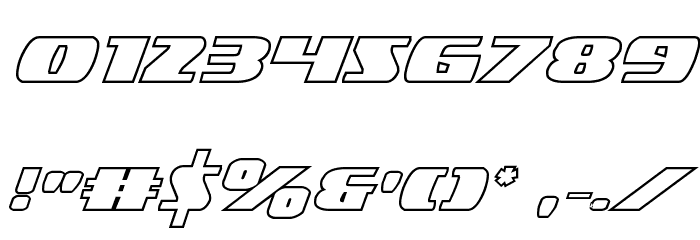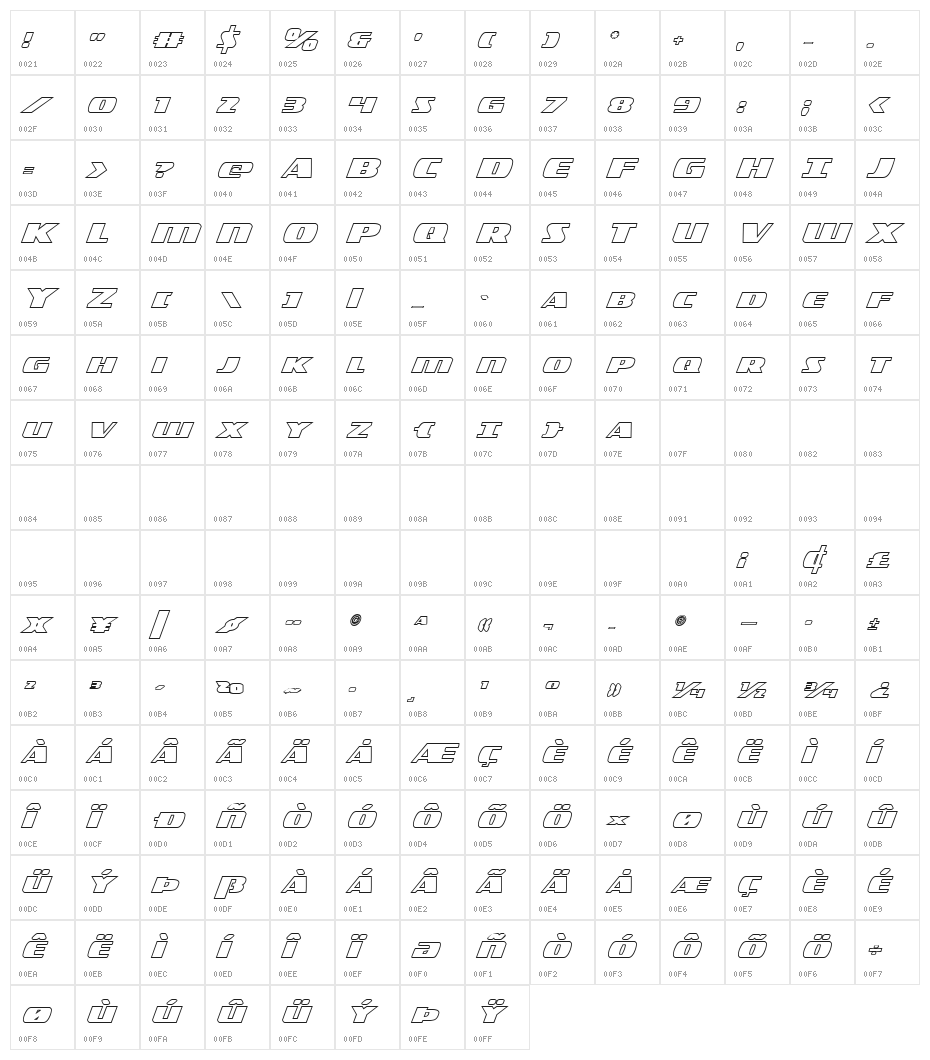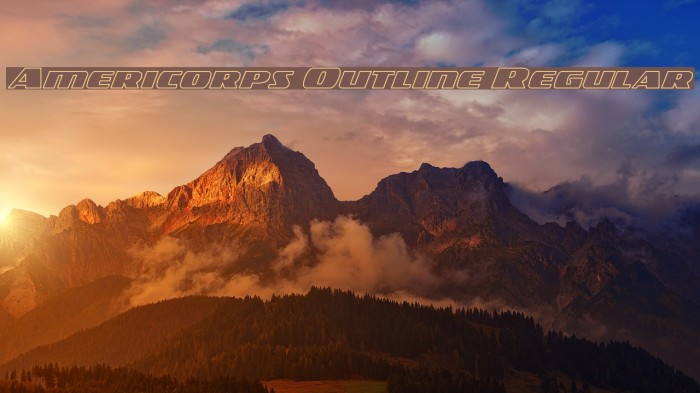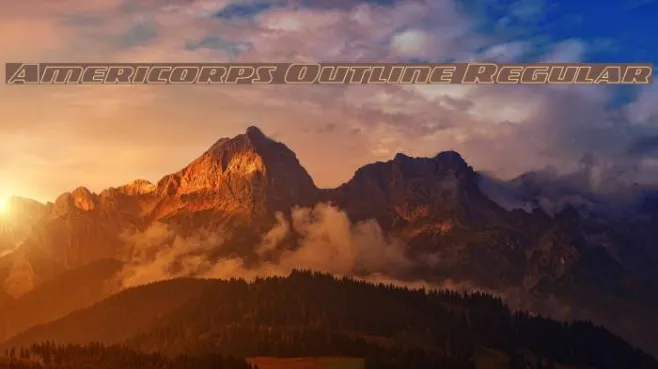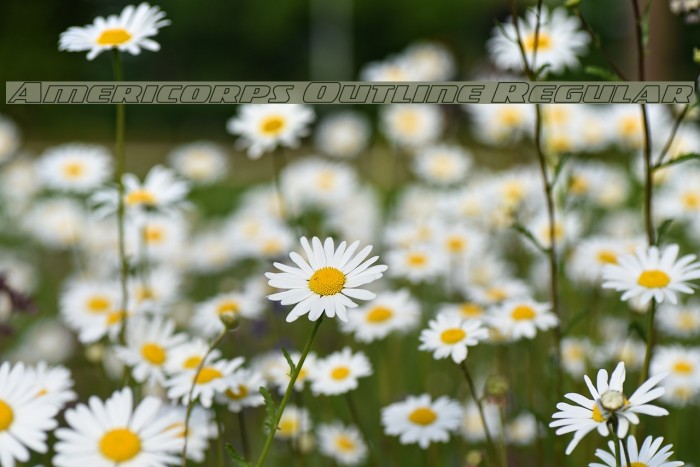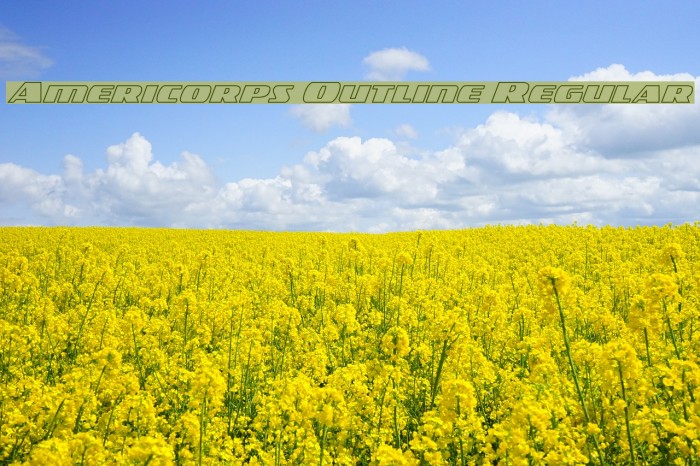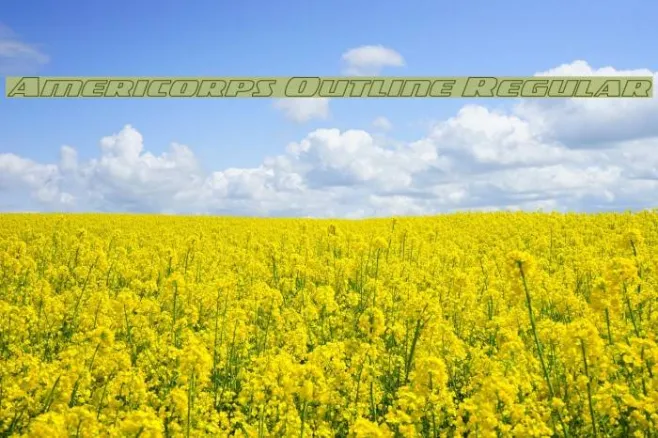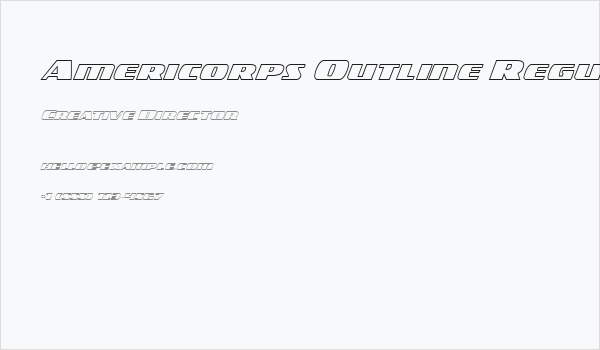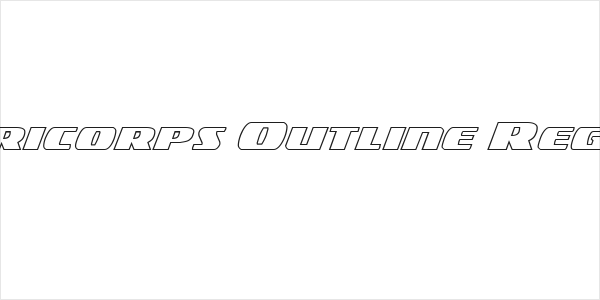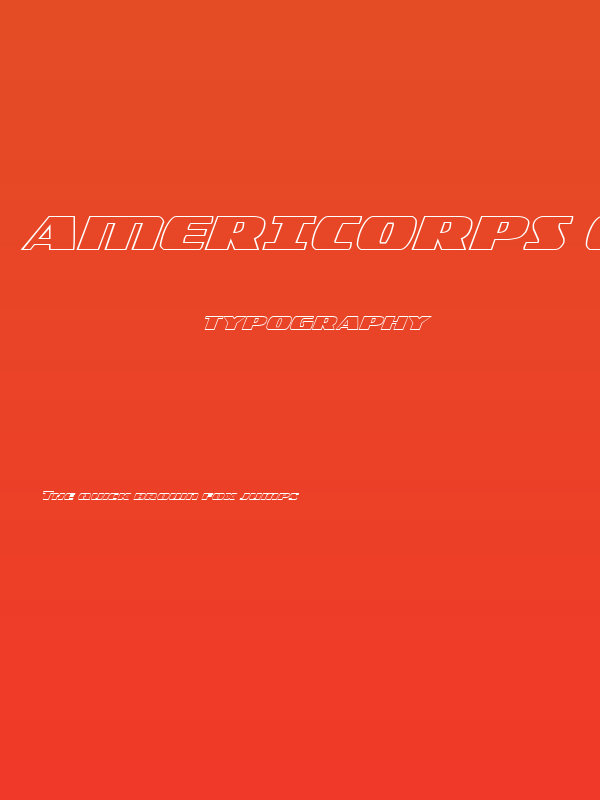
Americorps Outline Regular Font
Americorps Outline Regular Description
This font features a bold, outlined style with a modern and futuristic aesthetic. The characters are uppercase and have a geometric, angular design that gives them a strong presence. The strokes are consistent in width, creating a uniform look across all letters and numbers. The outline effect adds a unique dimension, making it suitable for eye-catching designs. The spacing between characters is normal, allowing for clear readability while maintaining a compact appearance. This font is ideal for projects that require a dynamic and impactful visual, such as branding, posters, and headlines.
| Proposed Projects | Ideal for branding, posters, headlines, and any design needing a strong, modern look. |